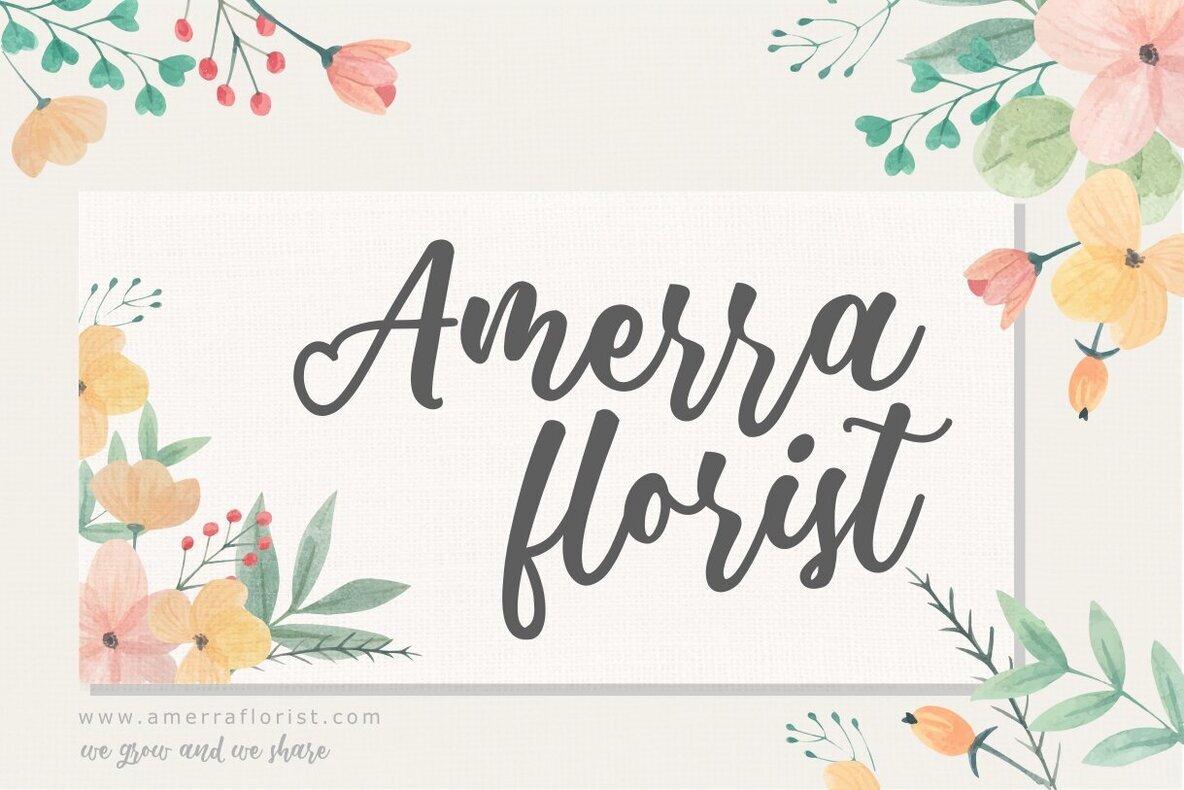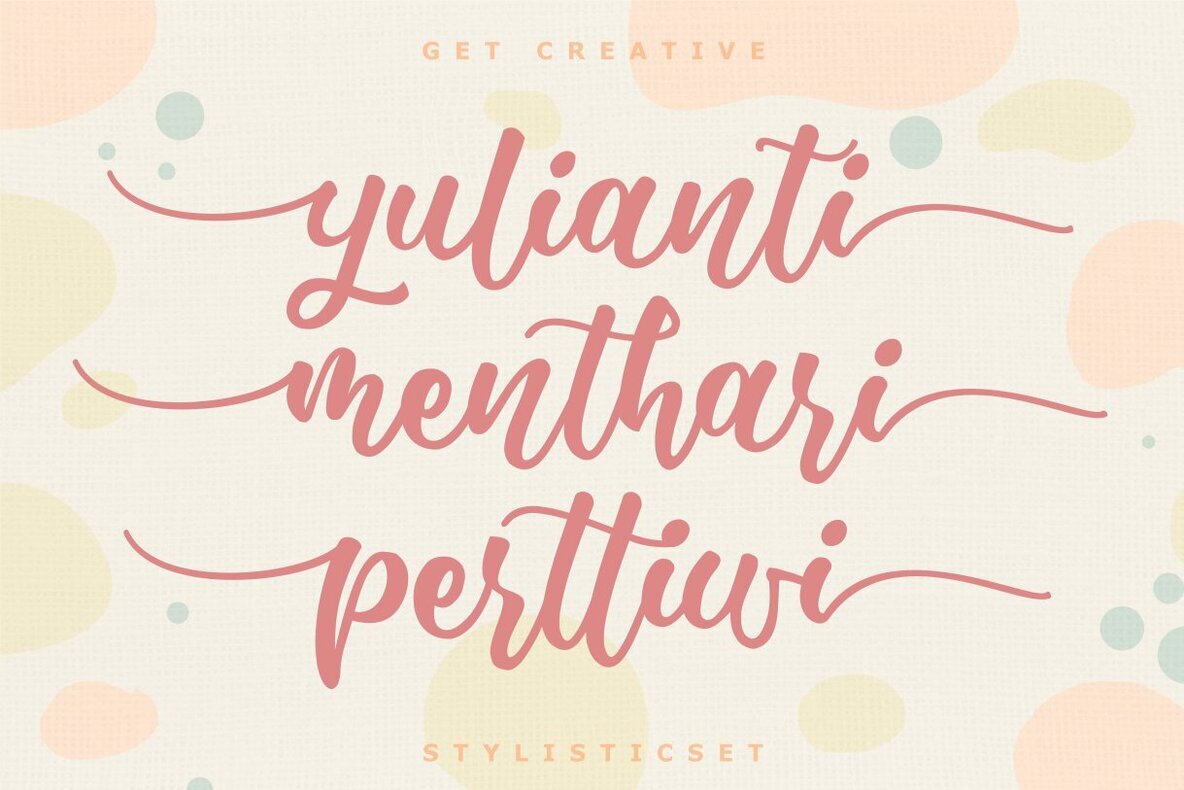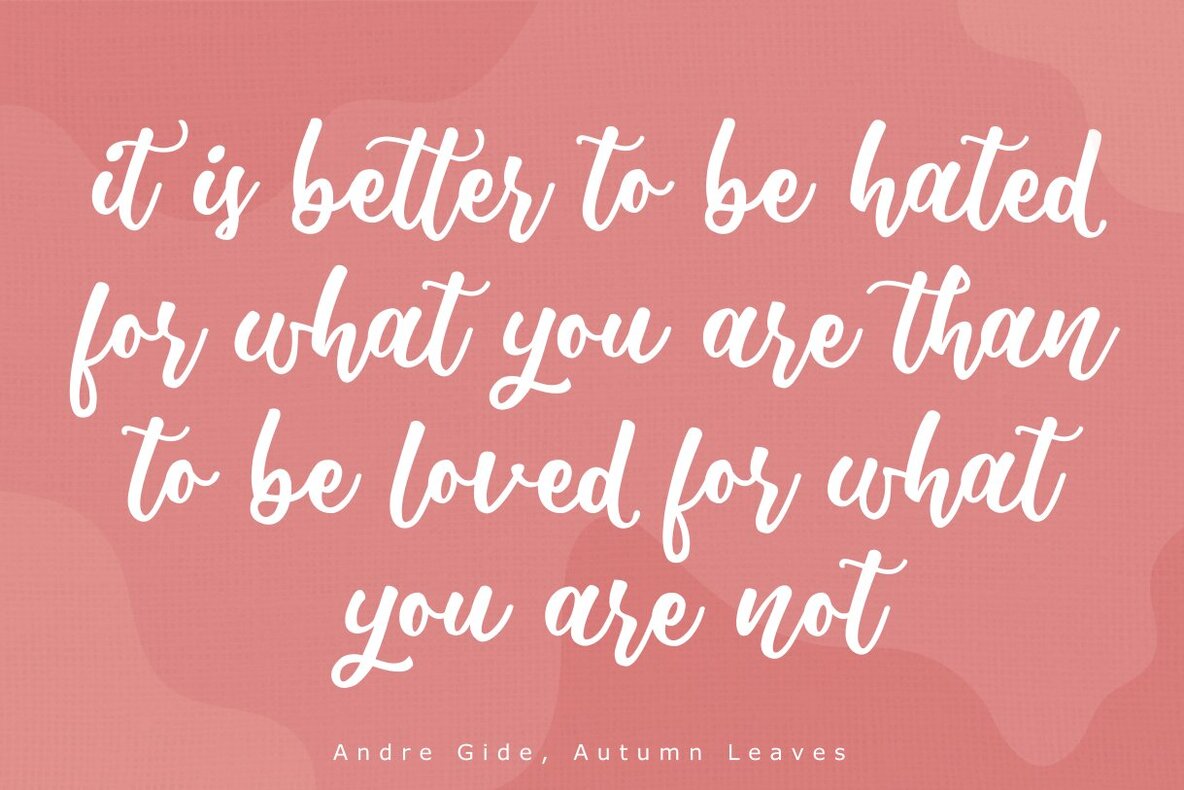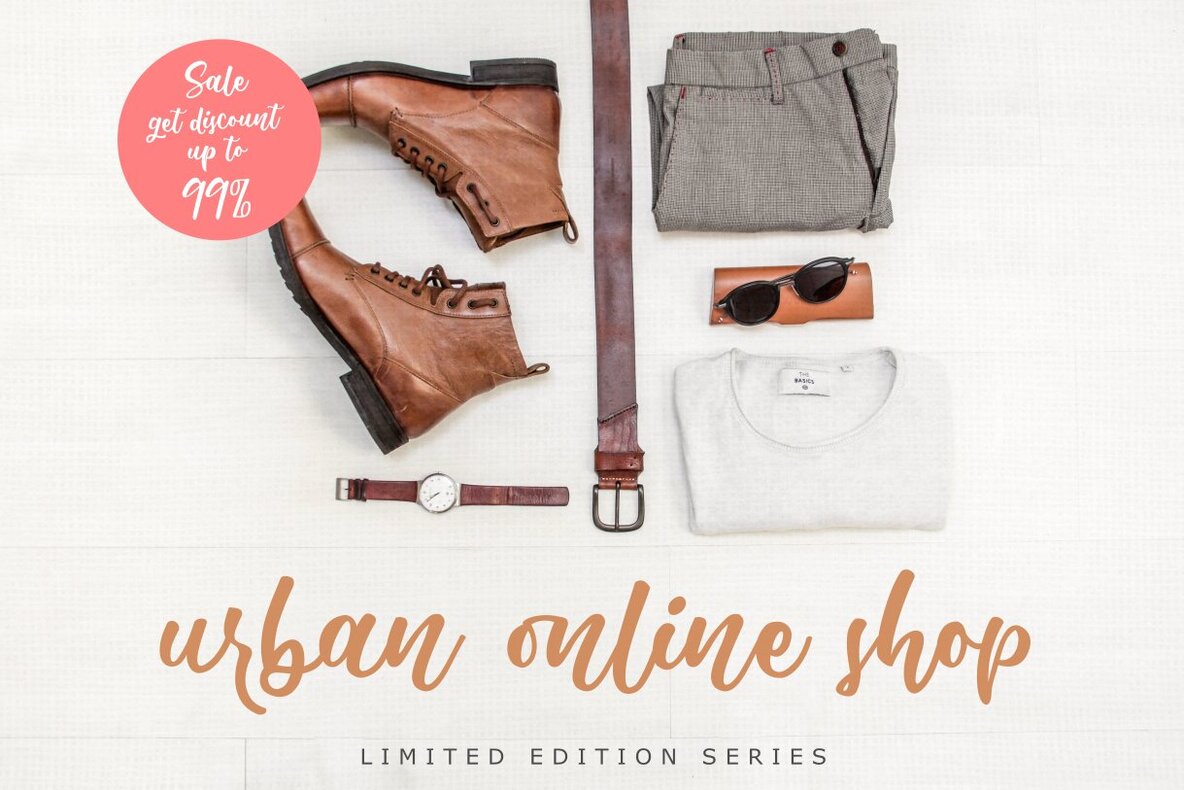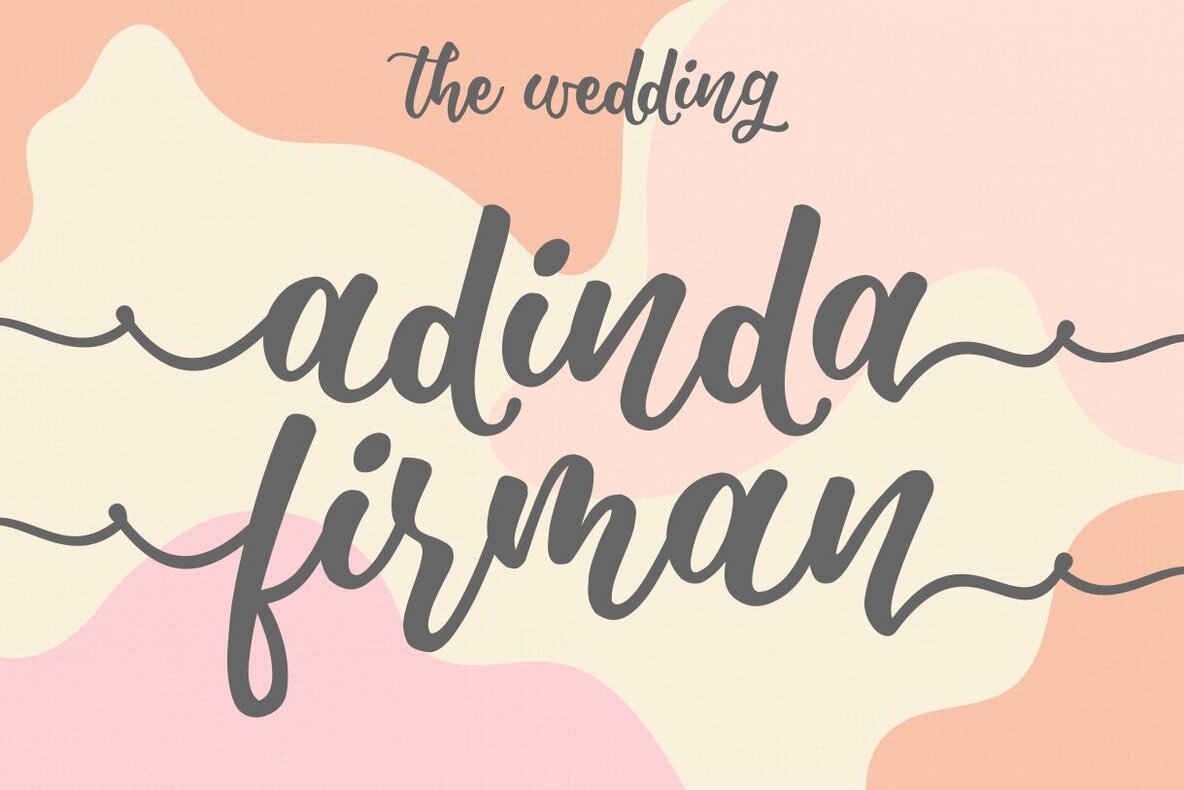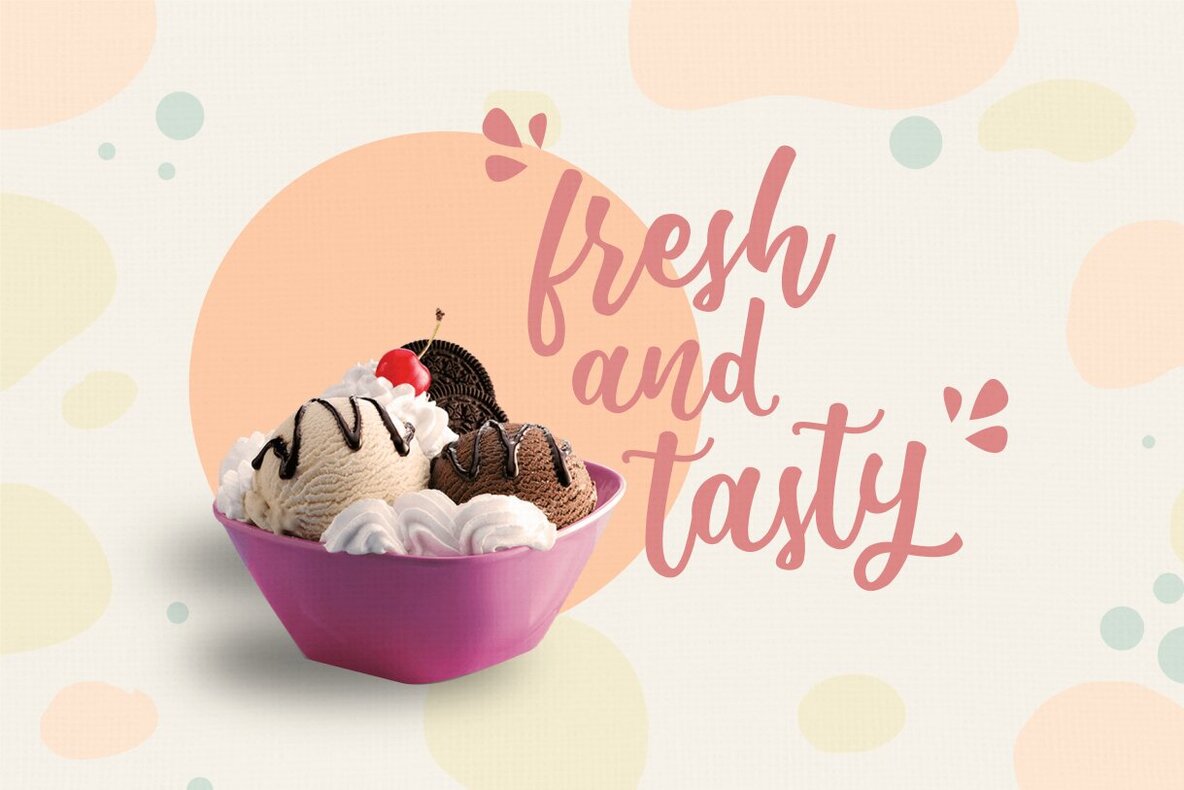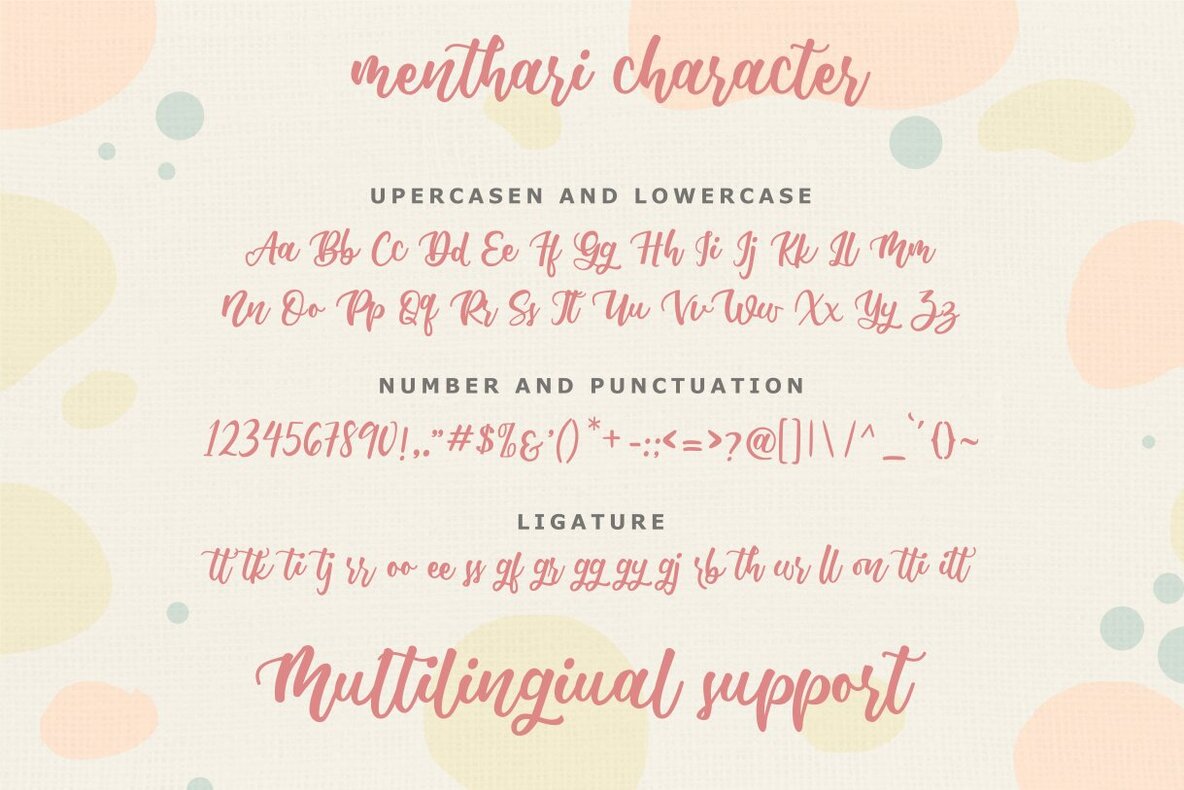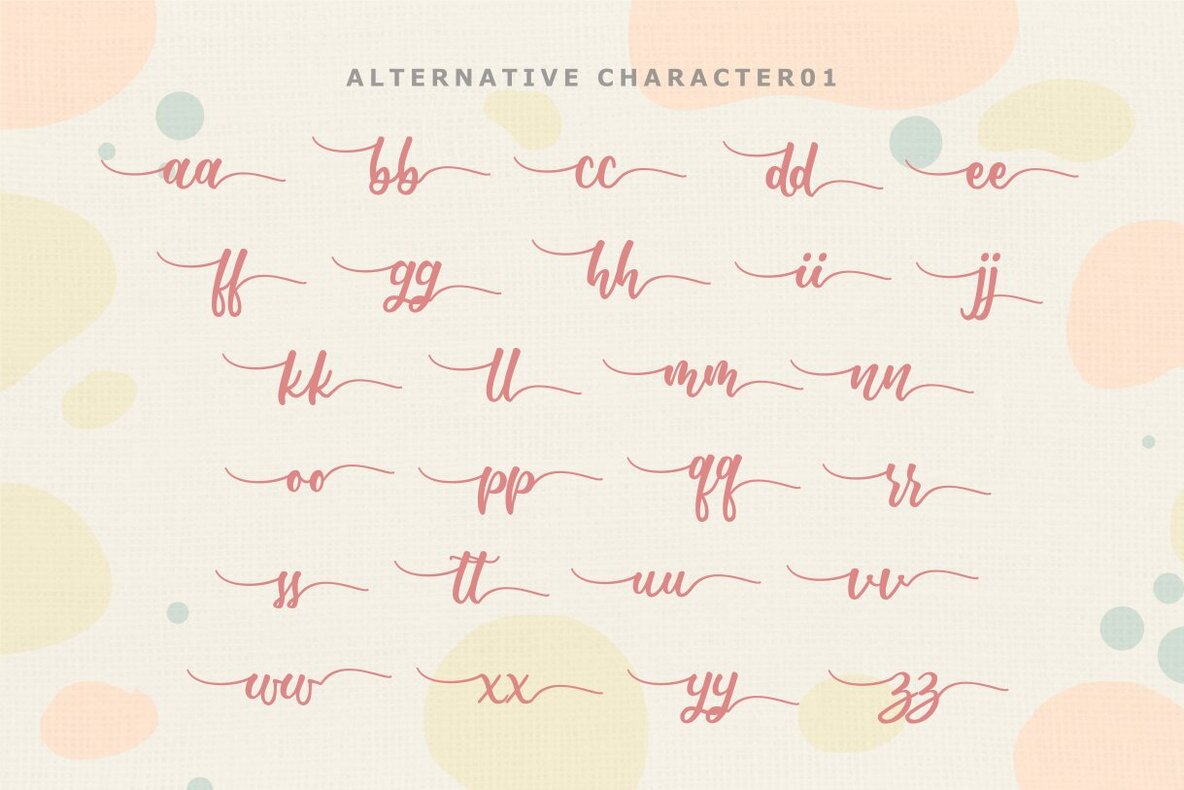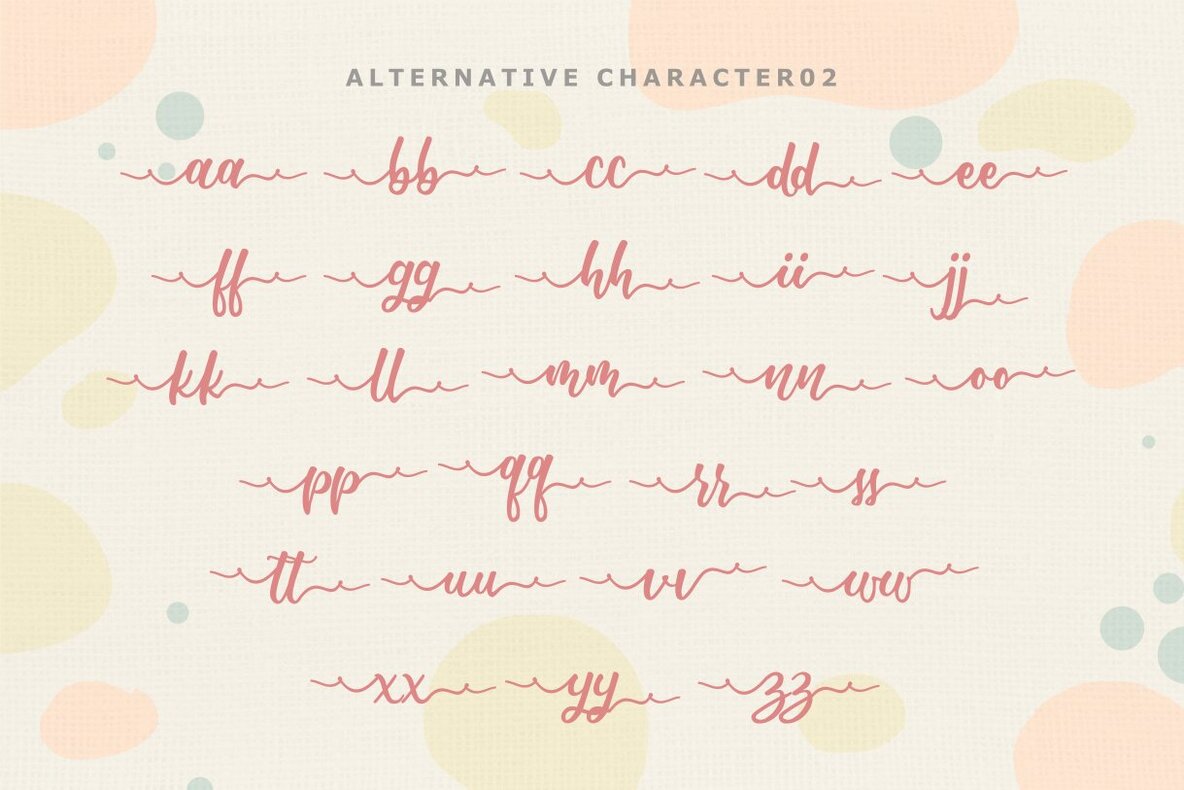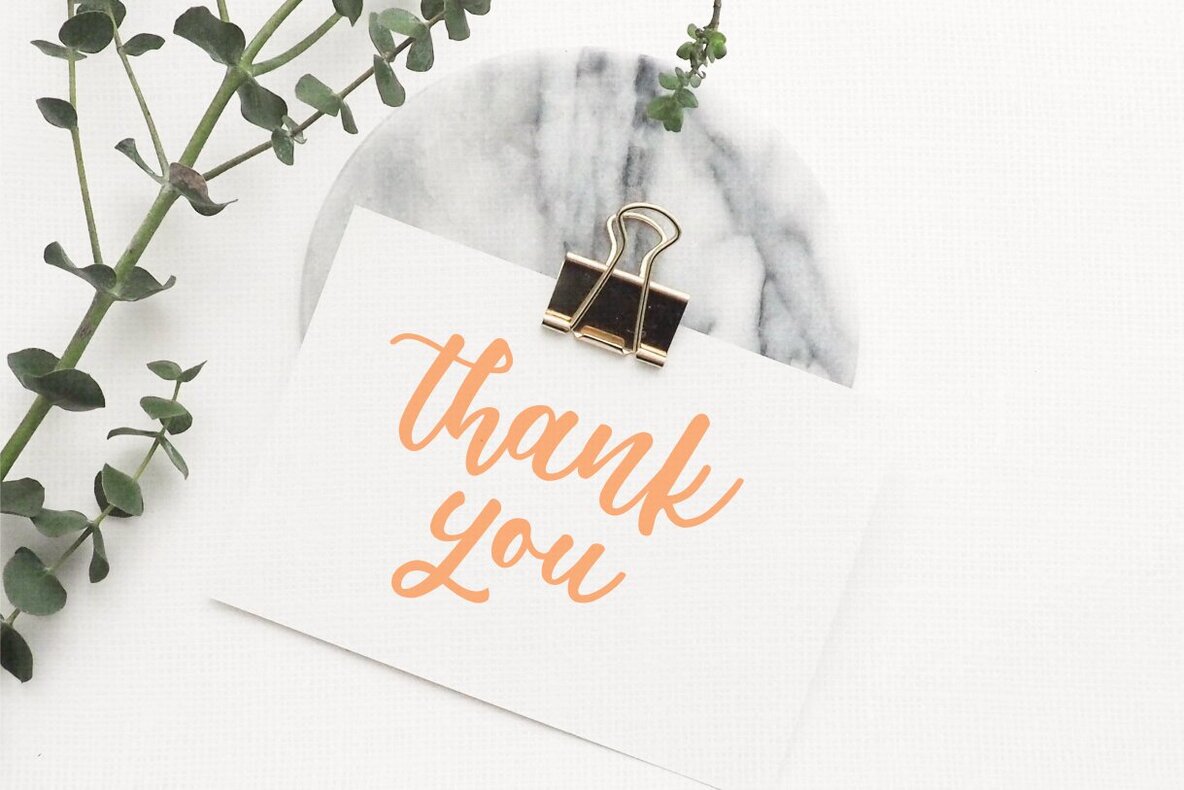
Menthari Font
Menthari Regular
Menthari by Zeenesia Studio exudes a girly charm, embodying beauty in every curve. This handwritten font is ideal for various lettering projects, such as silhouette cuttings, quote t-shirt designs, mugs, advertisements, wedding invitations, book covers, posters, business cards, and social media posts. This font works seamlessly on both PC and Mac and is easy to install. Menthari is compatible with prominent software such as Adobe Illustrator, Adobe Photoshop, Adobe InDesign, and even Microsoft Word, providing versatility and ease of use.Menthari: Elegant Handwritten Font